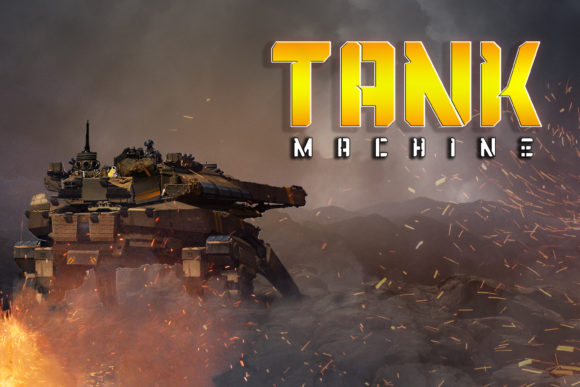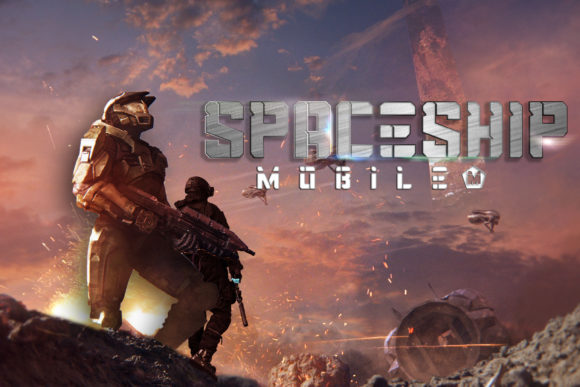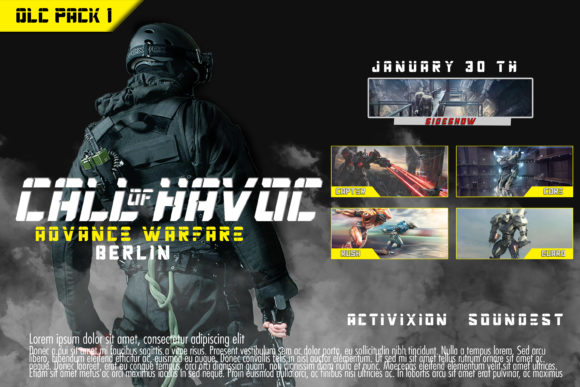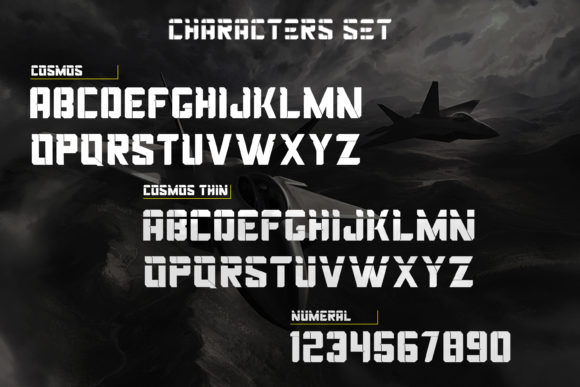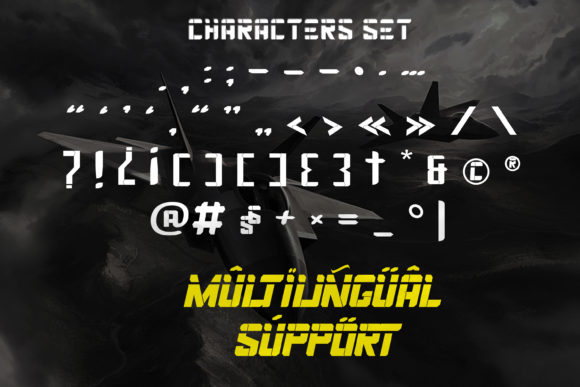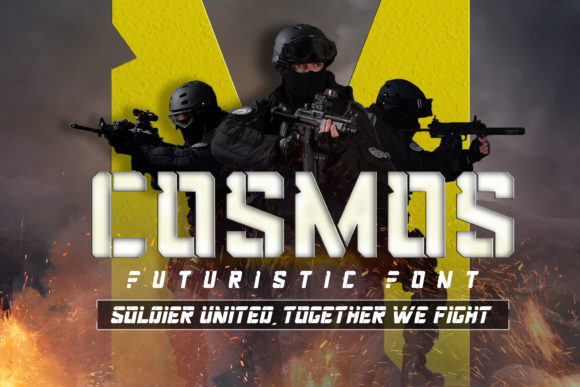
Cosmos Font: A Futuristic and Versatile Typeface for Modern Design
In the realm of typography, fonts play a crucial role in shaping the visual identity of a design. With the vast array of fonts available, it can be challenging to find the perfect one that embodies the desired aesthetic. However, if you’re looking for a font that exudes a sense of futurism, spaciousness, and versatility, look no further than Cosmos Font. In this article, we’ll delve into the features, benefits, and uses of Cosmos Font, making it an essential read for designers and crafters alike.
What is Cosmos Font?
Cosmos Font is a modern, sans-serif typeface that boasts a unique blend of sharp and rounded corners, creating a distinctive visual appeal. The font’s design is characterized by narrow spacing, which allows for wide letters to fit comfortably, making it ideal for titles, subtitles, and user interface (UI) design. The blocky feel of Cosmos Font adds a touch of ruggedness, setting it apart from other fonts in its category.
Key Features of Cosmos Font
- Spacious and Futuristic Design: Cosmos Font features a generous x-height and wide letterforms, giving it a spacious and airy feel. The font’s futuristic design makes it perfect for projects that require a modern and avant-garde look.
- Mix of Sharp and Rounded Corners: The font’s unique blend of sharp and rounded corners creates a visually appealing contrast, adding depth and interest to any design.
- Narrow Spacing: The narrow spacing in Cosmos Font allows for optimal legibility, even at smaller font sizes, making it suitable for a wide range of applications.
- Blocky Feel: The font’s blocky texture gives it a sturdy, rugged feel, making it perfect for titles, subtitles, and UI design.
Benefits of Using Cosmos Font
Cosmos Font offers several benefits that make it an attractive choice for designers and crafters:
- Versatility: Cosmos Font can be used in a variety of design projects, from futuristic technology brands to modern art and craft projects.
- Legibility: The font’s clear and concise design ensures excellent legibility, even at smaller font sizes.
- Unique Aesthetic: Cosmos Font’s distinctive blend of sharp and rounded corners, combined with its blocky feel, sets it apart from other fonts.
- Time-Saving: With Cosmos Font, designers can save time and effort, as the font’s versatility and legibility reduce the need for extensive font pairing and adjustments.
Use Cases for Cosmos Font
Cosmos Font is an excellent choice for a wide range of design projects, including:
- Titles and Subtitles: The font’s bold, blocky feel makes it perfect for attention-grabbing titles and subtitles.
- User Interface (UI) Design: Cosmos Font’s clear and concise design ensures excellent legibility, making it suitable for UI elements, such as buttons, menus, and navigation.
- Branding and Logo Design: The font’s unique aesthetic and versatility make it an excellent choice for branding and logo design projects.
- Art and Craft Projects: Cosmos Font’s modern, futuristic design makes it perfect for art and craft projects that require a bold, eye-catching look.
In conclusion, Cosmos Font is a versatile, modern typeface that offers a unique blend of sharp and rounded corners, narrow spacing, and a blocky feel. Its spacious and futuristic design makes it perfect for a wide range of design projects, from titles and subtitles to UI design and branding. With its excellent legibility, unique aesthetic, and time-saving benefits, Cosmos Font is an essential addition to any designer’s or crafter’s font library.